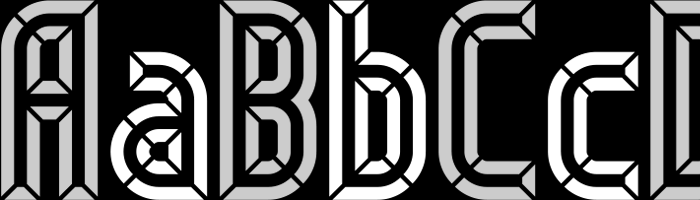
@architaraz - The cut-out effect of the bevel/chisel makes the typeface appear to 'sparkle.'  Nice work!  :^)
It's OK, Archie, It makes a good stencil.
Bevellissimo. I think, you've found the right proportions for the bevelled edges/thin gaps/curves' radii. Your letters look three dimensional with a metallic finish. 10/10
Nice one! You're good at make those shapes come true :)
Congratulations! FontStruct Staff have deemed your FontStruction worthy of special mention. “AT Bevelour” is now a Top Pick.